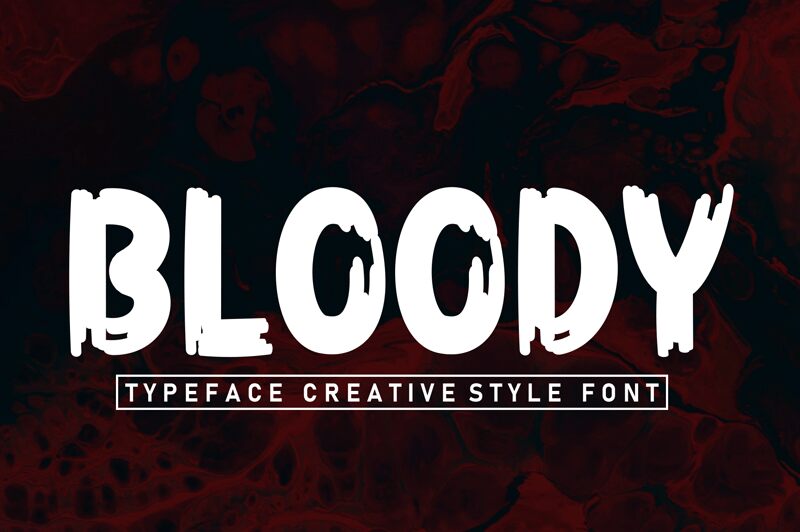
Bloody
Bloody font by Andi Moz is a bold, scary display script with grungy and distressed letter designs. Express yourself in an intense way using it to feature words or short text that grab attention instantly. The uneven yet readable characters trigger unease while feeling dramatic and uncertain.
Channel this free scary font into conjuring all things horror-related be it in books, movies, posters, albums, or more. Create stunning haunted house signs for Halloween or even marketing material with bone-chilling impact. Bloody gets people looking as well as feeling so try it on collages or social media posts as well!